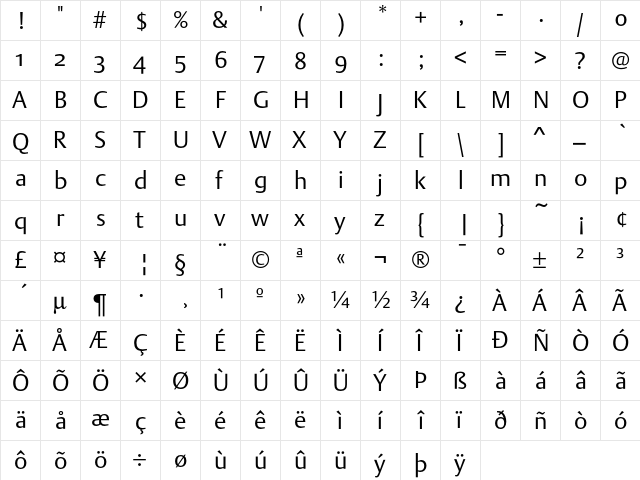
DTLArgoST Light
Design Context for DTLArgoST Typeface
DTLArgoST offers clean, dependable letterforms without strong stylistic allegiance, making it a practical choice for designers who need flexibility. Its slender proportions lend an understated elegance to any composition.